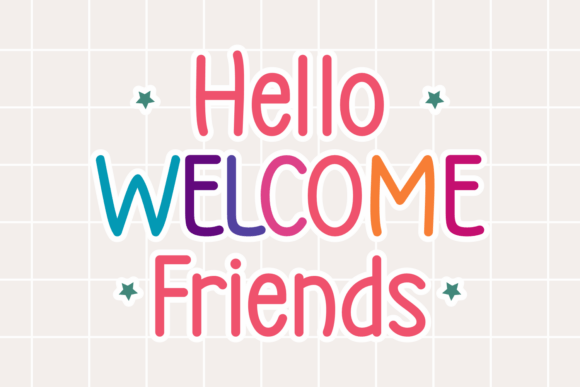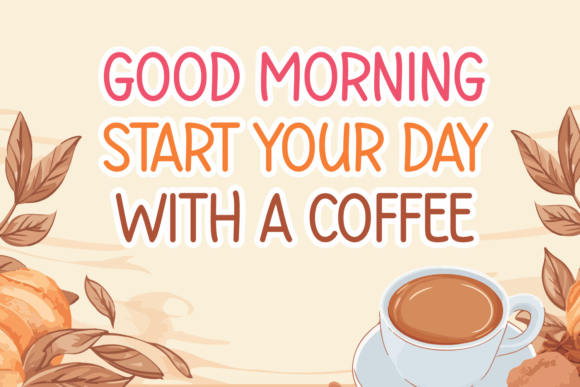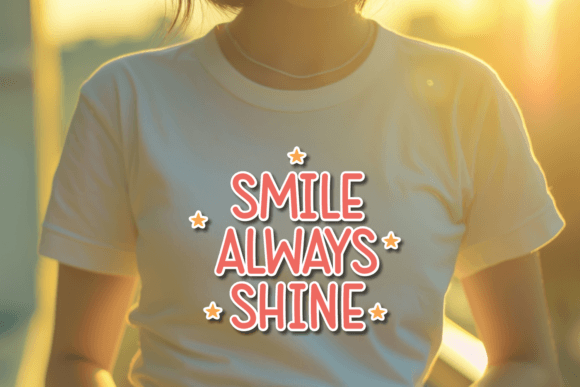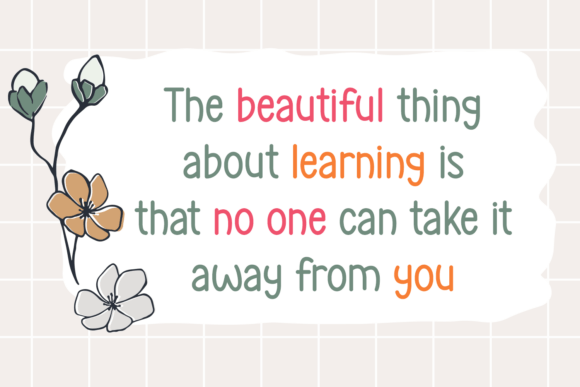
Find Your Creative Flow with Always Peace Font
Have you ever been in the midst of a creative project, staring at a blank page or screen, and suddenly, a burst of inspiration hits you? You know exactly the look and feel you want to convey, and it’s like a switch has been flipped – your design starts to come together in a beautiful way. For designers like you, finding that perfect font can be the key to unlocking your creative flow. That’s where the Always Peace Font comes in – a fun, handwritten font that brings a sense of warmth and personality to your designs.
With its playful letters and relaxed style, the Always Peace Font is perfect for invitations, greeting cards, and anything that needs a touch of joy. It’s a valuable addition to any designer’s toolkit, allowing you to add a personal feel to your work and bring a smile to your audience’s faces.
Always Peace Font Key Features
- Font Family: Always Peace is a unique script font, designed to evoke a sense of serenity and calmness.
- Character Set: The font includes a wide range of characters, including uppercase and lowercase letters, numerals, punctuation marks, and special characters.
- Unique Characteristics: The font’s unique script design and subtle flair make it perfect for creating a peaceful and calming atmosphere in design projects.
Always Peace Font Review
As a designer, I was excited to try out the Always Peace Font, and overall, I have mixed feelings about it.
- ✨ The font has a unique, hand-drawn feel to it, which can add a touch of personality to your designs.
- ✨ The font is quite legible, even at smaller sizes, making it suitable for body text or titles.
- ✨ The font’s curves and lines are smooth, which can create a sense of cohesion in your designs.
- ⚠️ The font may not be suitable for formal or corporate designs, as it has a more casual, handwritten feel to it.
- ⚠️ Some letters, such as the ‘k’ and ‘q’, may be difficult to read or may require extra attention when typesetting.
The Always Peace Font is a unique and creative option for designers who want to add a personal touch to their work. While it has its limitations, it can be a great choice for casual or creative projects. However, for more formal or complex designs, you may want to consider other options.
The Always Peace Font is ideal for creating calming and soothing designs, making it perfect for:
- Meditation and yoga websites
- Wellness and self-care marketing materials
- Relaxing and calming social media graphics
Remember to use the font consistently throughout your design to maintain a cohesive look and feel.